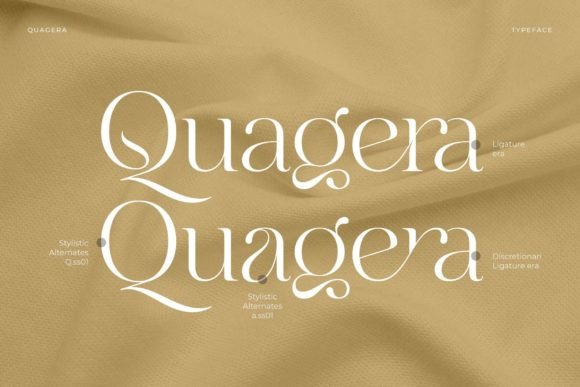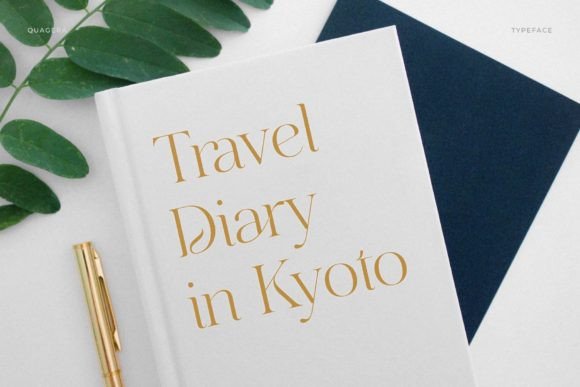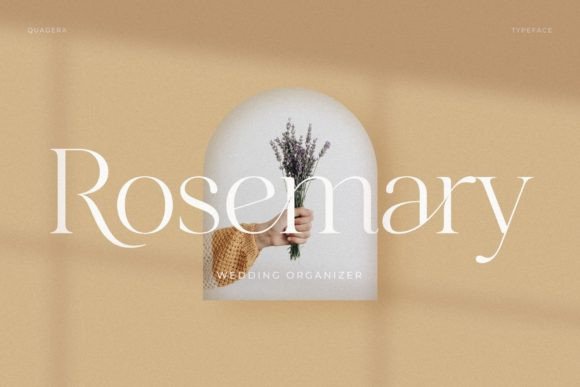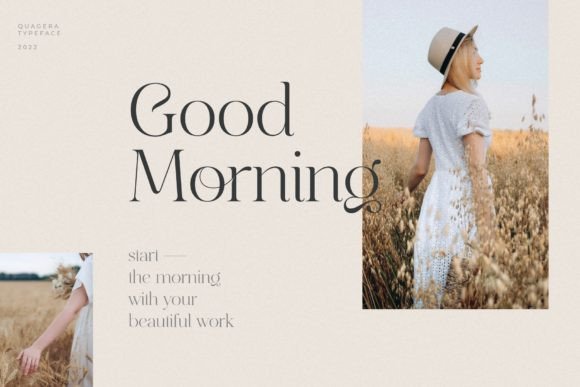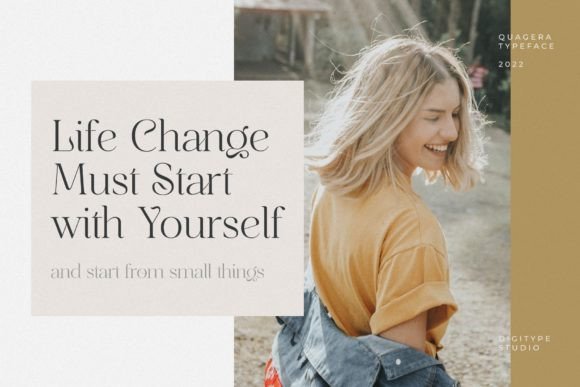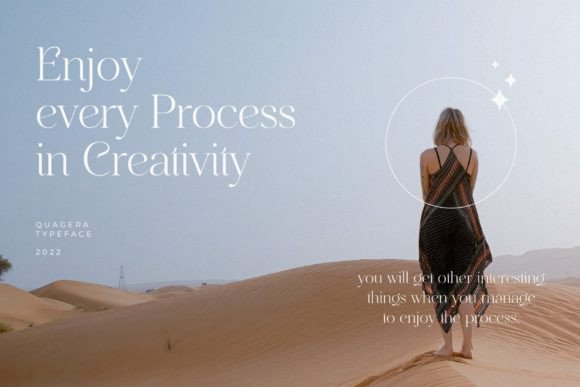
Introduction to Quagera Font
Have you ever found yourself staring at a blank canvas, trying to decide on the perfect font to bring your creative project to life? I know I have. As a designer, I understand the importance of choosing a font that not only complements your design but also adds a touch of personality to it. That’s where the Quagera Font comes in – a stunning serif font that’s perfect for adding a high-quality, elegant touch to your design.
With its unique blend of modern and old styles, Quagera Font is a valuable resource for designers looking to elevate their creative project. This beautiful font is equipped with a range of features, including unique ligatures, discretionary ligatures, and alternates, making it perfect for a variety of applications, from fashion and logos to invitations and greeting cards.
Key Features of Quagera Font
- High-quality design resource ideal for creative projects, with a unique blend of modern and vintage styles.
- Features a large character set, including uppercase and lowercase letters, numbers, and punctuation marks, making it a versatile design resource.
- Designed to be highly legible, even at small font sizes, making it perfect for use in various creative projects, from signage to editorial content.
- ✨ The Quagera Font is incredibly versatile, making it perfect for a wide range of creative projects, from logos to editorial designs.
- ✨ The font features a beautiful, modern design with clean lines and a transparent background, allowing for seamless integration into any design.
- ⚠️ The font library is relatively small, which may limit its use in more complex design projects.
- ⚠️ Some users may find the font’s modern design to be too trendy, which could lead to it quickly going out of style.
Overall, I’m impressed with the Quagera Font’s quality and versatility. While it may have some limitations, it’s an excellent addition to any designer’s toolkit, especially for those working on creative projects on a budget.
The Quagera Font is commonly used in various design projects, including logos, brochures, business cards, and social media graphics. Its versatility makes it a great choice for any creative project.